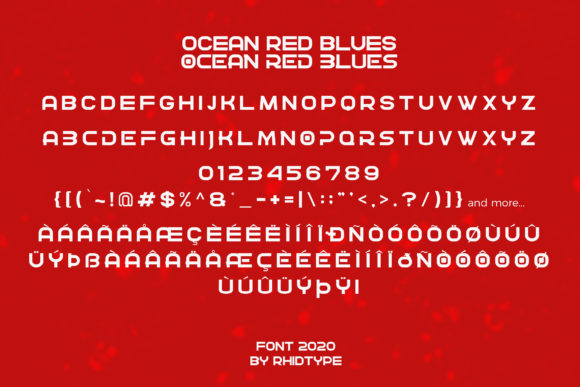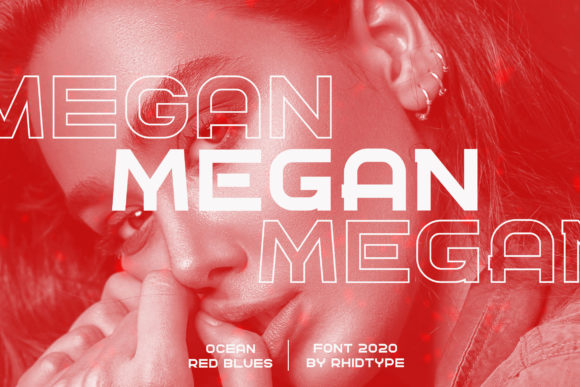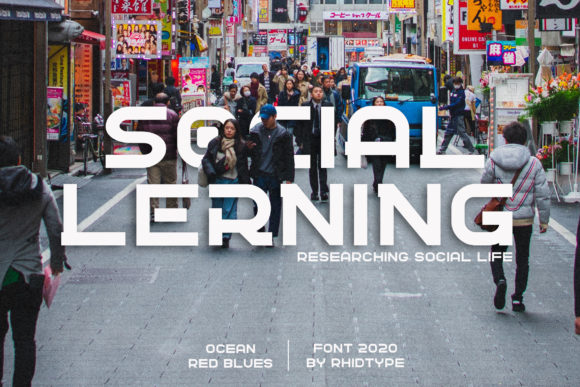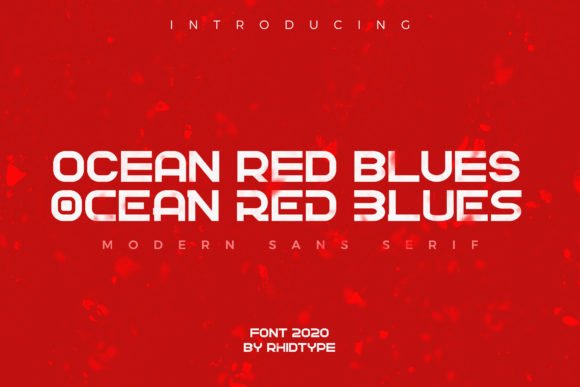
Introduction to Ocean Red Blues Font
Ocean Red Blues is a neat and simple sans serif font.
Incredibly versatile, this font fits a wide pool of designs, elevating them to the highest levels .
Key Features of Ocean Red Blues Font